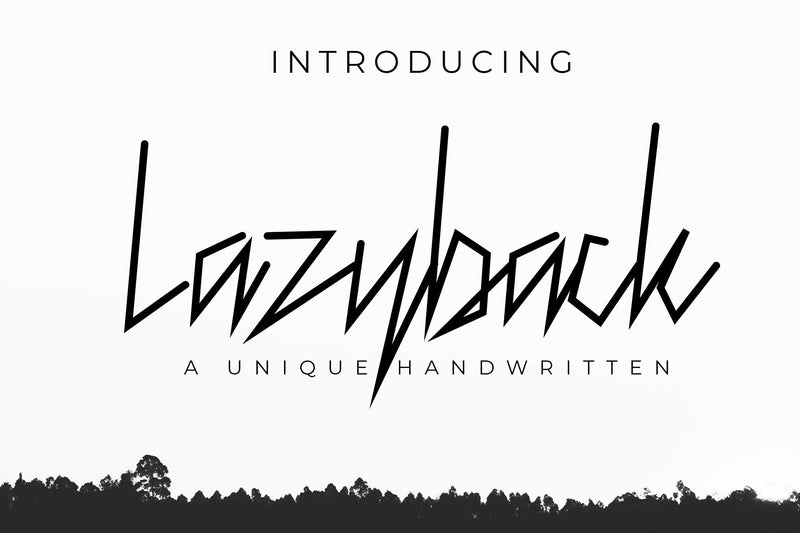
Lazyback - handwritten font
Lazyback is a unique and elegant handwritten font with a simple look. Created with natural handwriting, It is the best choice for creating attractive logos, branding and quotes. Each letter has a unique and beautiful touch, which will bring your designs to life!